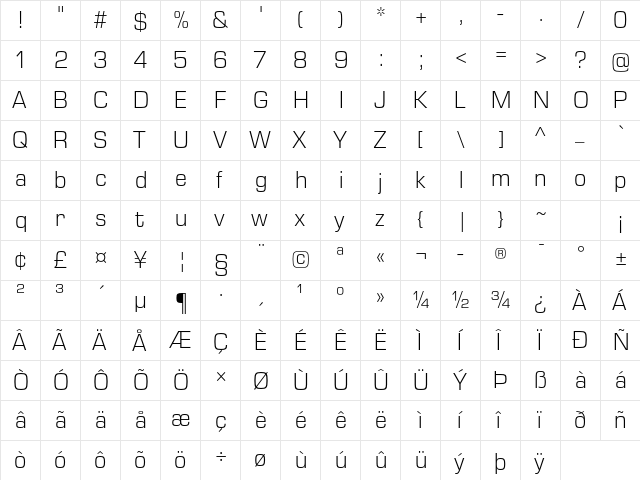
Eurostile Next LT Pro Light
| Foundry | Linotype GmbH |
| Designer | Linotype Design Studio |
Design Context for Eurostile Next LT Pro Typeface
Eurostile Next LT Pro offers clean, dependable letterforms without strong stylistic allegiance, making it a practical choice for designers who need flexibility. Its slender proportions lend an understated elegance to any composition.